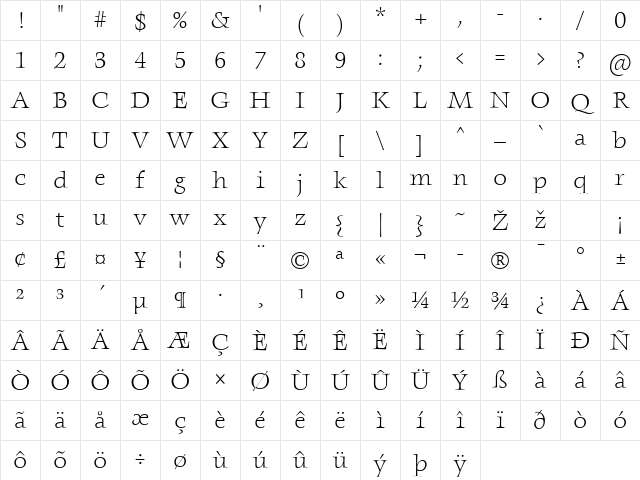
AngkoonTF-Light is a composed and adaptable typeface that performs quietly and consistently across a wide range of design contexts. Its slender proportions lend an understated elegance to any composition.